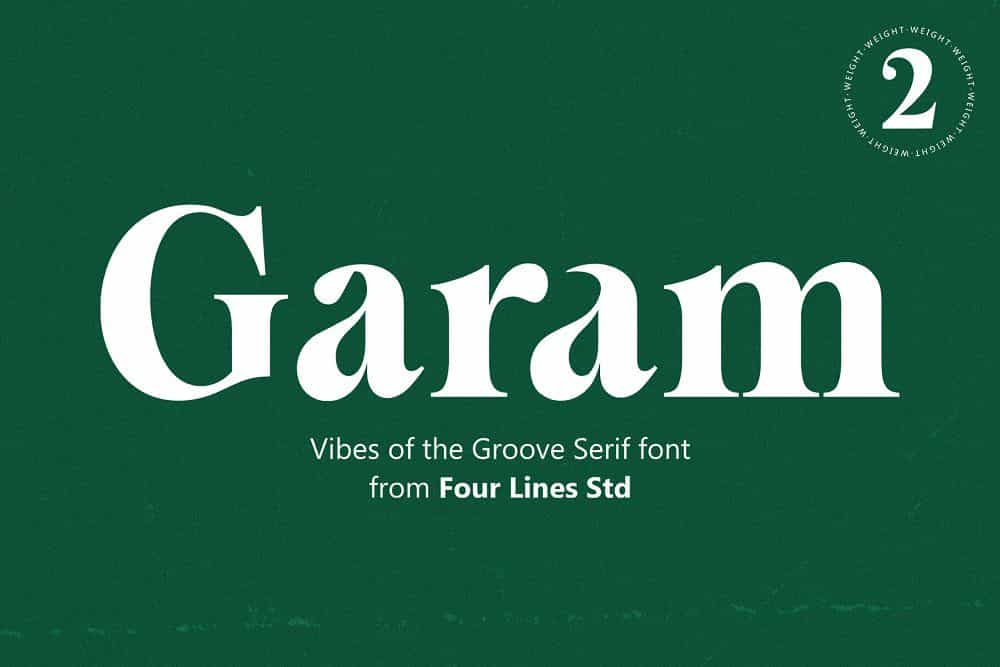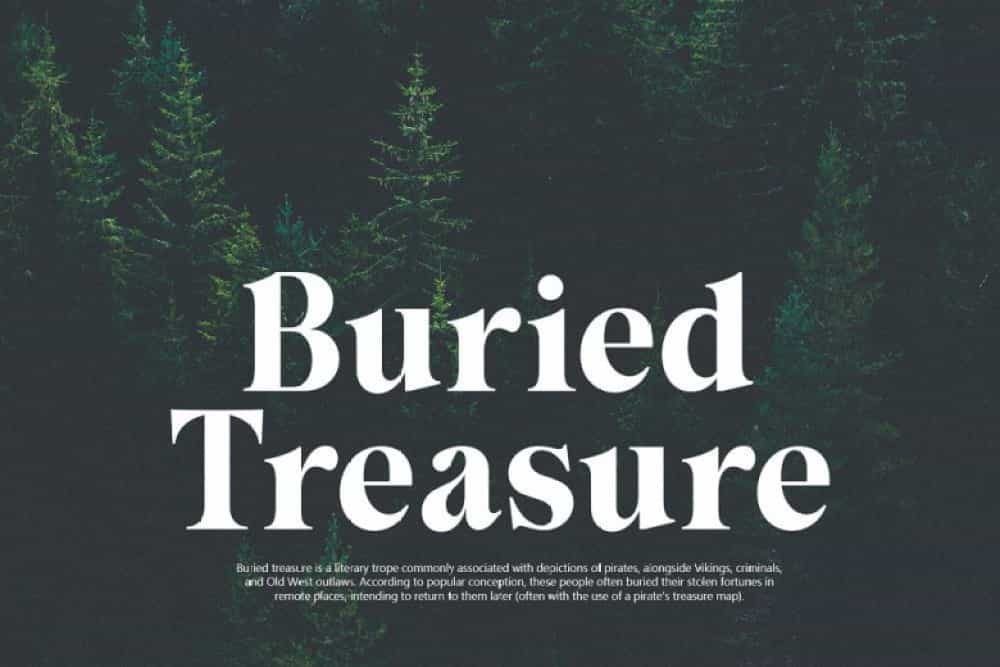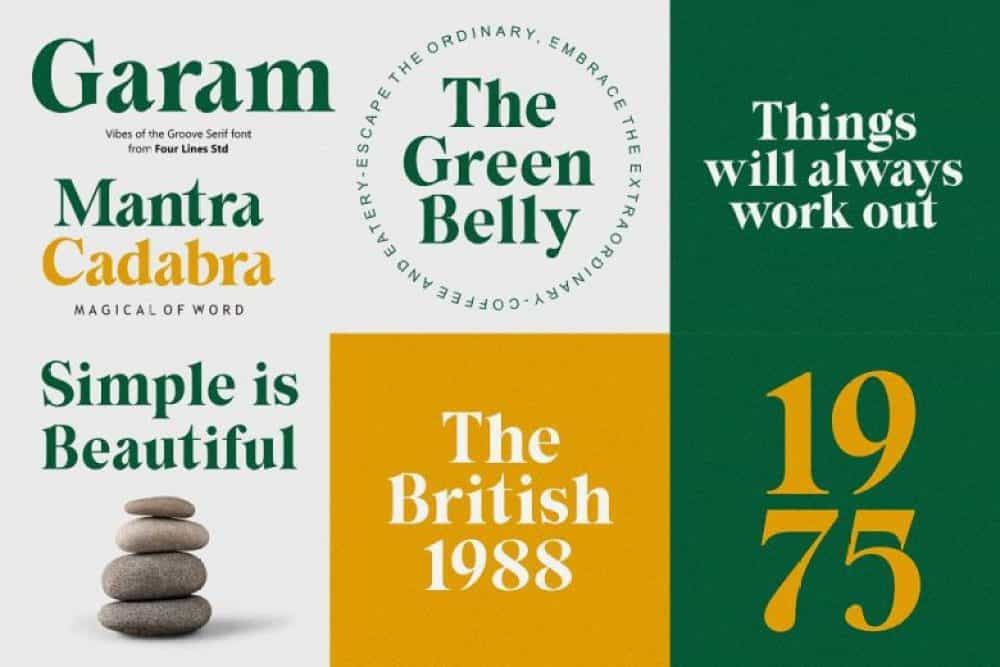
Discover Garam Font, part of the Serif collection—a versatile and unique font perfect for adding a personal touch to your projects. Download it for free and enjoy crafting designs with style, from invitations to social media posts. This font is available exclusively for personal use, giving you the freedom to create without limits. Unlock your creativity with Garam Font today!
Garam is an amazing serif bold font characterized by the clean lines and smooth shapes that are great for fashion logos and magazines. This font can be incorporated into your projects and opens up a whole new world of possibilities for you. Additionally, this font is PUA encoded, so you will have a full access to numerous glyphs and swashes for additional decoration.